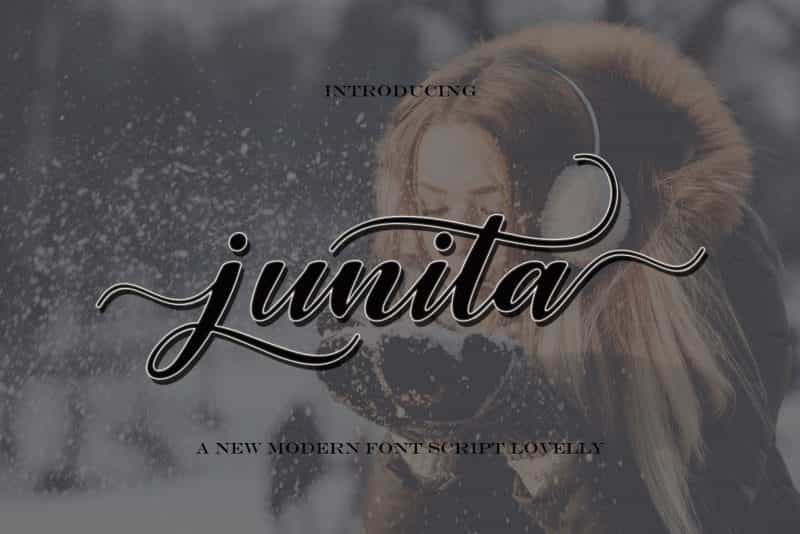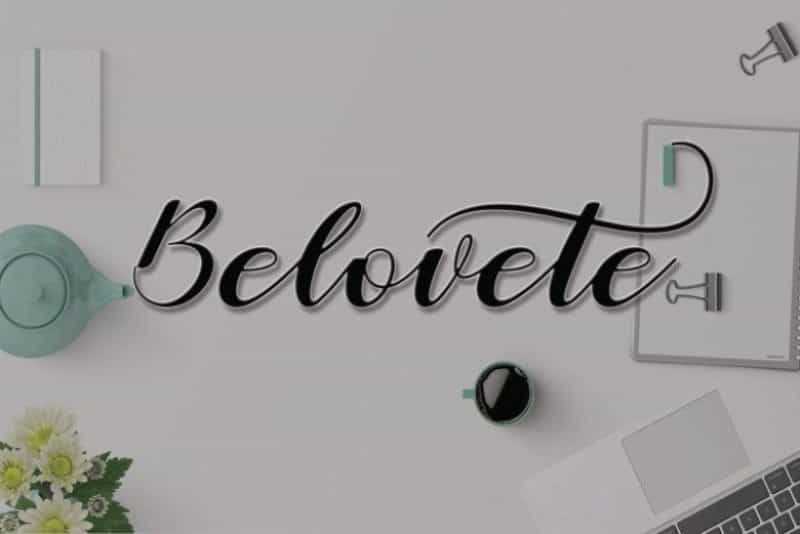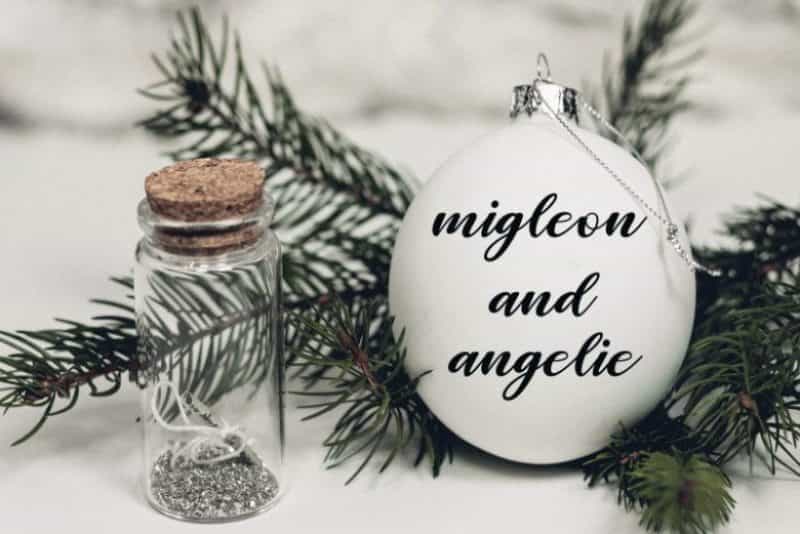
Junita Calligraphy Font – A new fresh handwritten font that perfect for any project. A new modern calligraphy Typeface Fonts with copperplate to contemporary typeface, classic, beauty and elegant touch. It is created and posted by letterfont.